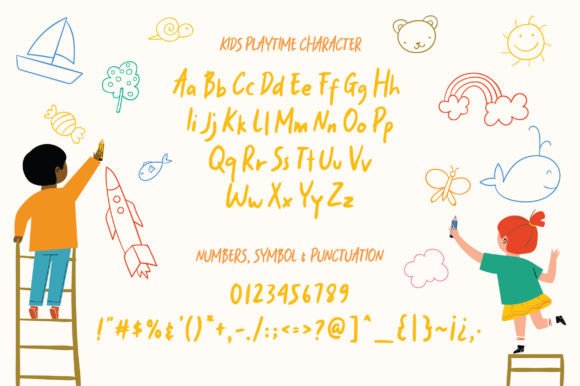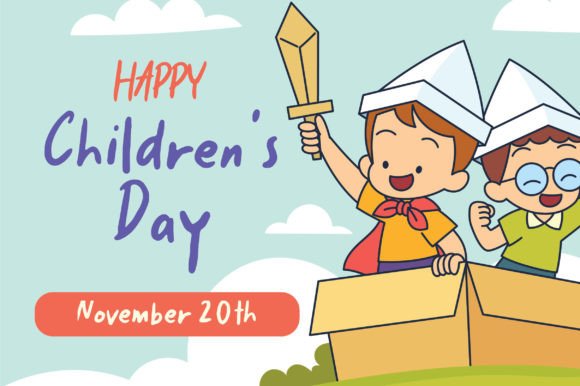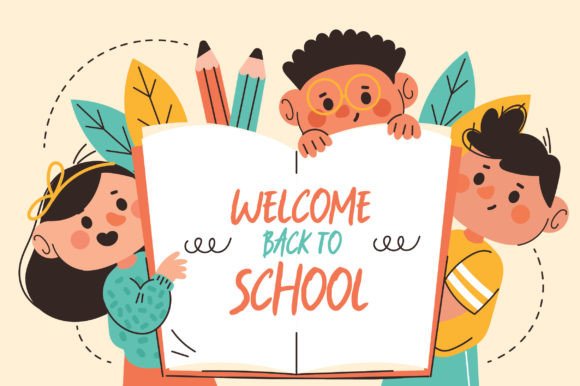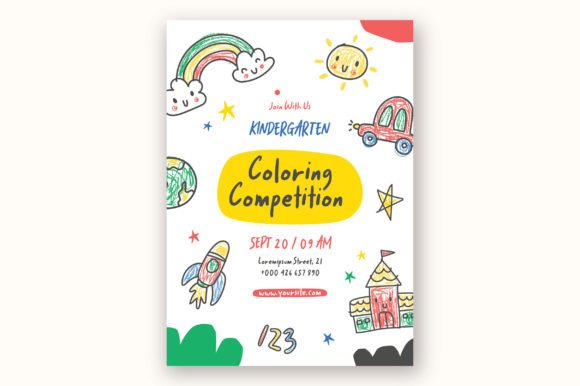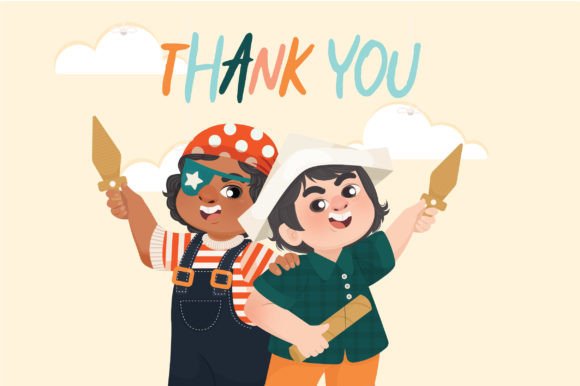
Introduction to Kids Playtime Font
Do you remember the excitement of rummaging through your grandmother’s old trunk, filled with colorful papers, scissors, and glue? The thrill of creating something entirely new and unique? For designers, that sense of wonder is still alive and well, and it’s exactly what the Kids Playtime Font embodies.
This playful display font is a design resource that will breathe new life into your creative projects. Whether you’re working on a children’s book, a school project, or a fun graphic design piece, the Kids Playtime Font is sure to bring a smile to your face. And the best part? It’s available for free download, so you can start experimenting right away.
With its transparent background and high-quality design, this font is a valuable addition to any designer’s toolkit. It’s a versatile resource that can be used in a variety of contexts, from digital design to print projects.
Key Features of Kids Playtime Font
- High-quality design suitable for creative projects, especially those aimed at children.
- Comes with a transparent background, allowing for easy integration into various design elements.
- Includes a wide range of characters, including uppercase and lowercase letters, numbers, and special characters, making it suitable for a variety of creative projects.
- Designed at a high resolution of 1024 x 1024 pixels, ensuring crisp and clear display on high-resolution screens.
- Perfect for use in educational materials, children’s books, and other design projects where a playful and engaging font is required.
Honest Review: Kids Playtime Font
I recently stumbled upon the Kids Playtime Font while searching for a free download to add some whimsy to a creative project. As a designer, I was excited to see how it would hold up in various design scenarios.
What works well is the font’s playful and youthful aesthetic, perfect for design projects targeting kids or family-oriented themes. The high quality of the font ensures that it scales well and maintains its integrity even at larger sizes. The transparent background option also makes it easy to incorporate into complex design compositions.
- Playful and youthful aesthetic
- High quality and scalable
One potential limitation is the limited number of characters available in the free version, which may not be suitable for longer text-based projects. However, for shorter phrases or headings, it’s a great design resource to have in your arsenal.
Overall, I’m impressed with the Kids Playtime Font and would recommend it to designers working on family-friendly projects or need a fun, creative element to add some visual interest.
The Kids Playtime Font can be used in a variety of design applications, including:
To get the most out of the Kids Playtime Font, consider the following tips:
- Use a transparent background to create a seamless design.
- Experiment with different font sizes and colors to add visual interest.
- Combine the font with other design elements to create a cohesive look.
The Kids Playtime Font is perfect for:
- Children’s party invitations and decorations.
- Education and learning materials.
- Family and parenting-related projects.
Alternatives to Kids Playtime Font
Candy Font
Candy Font is a colorful and playful font ideal for creative projects that require a fun and youthful vibe. It’s available for free download and can be used for both personal and commercial projects. This font features a transparent background and high-quality design, making it perfect for designs that need a bit of whimsy.
Candy Font is similar to Kids Playtime Font in its playful nature, but it has a more vibrant and candy-inspired aesthetic. It’s suitable for designs like party invitations, food labels, and children’s book covers.
Playfair Display is a high-end, elegant font that can add a touch of sophistication to your designs. This font is ideal for creative projects that require a sense of luxury and refinement. It’s available for free download and features a transparent background and high-quality design.
What is the recommended resolution for using the Kids Playtime Font?
Is the Kids Playtime Font suitable for high-quality design projects?
Yes, the Kids Playtime Font is designed to meet the highest standards of quality, making it perfect for designers working on high-end projects, such as magazines, brochures, and websites.